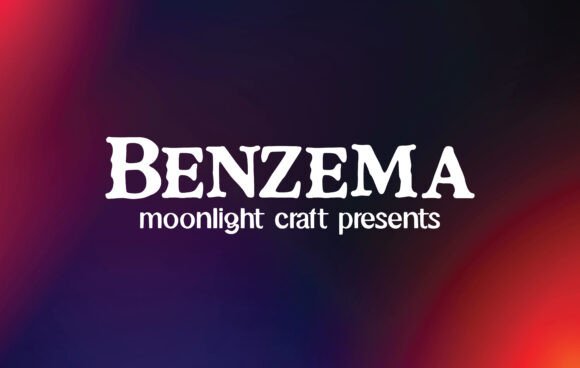
Benzema Font: Elevate Your Creative Projects with Elegance and Sophistication
In the world of typography, fonts play a crucial role in conveying messages, expressing emotions, and creating a lasting impression. For designers, crafters, and creative enthusiasts, finding the right font can be a daunting task. However, if you’re looking for a font that exudes elegance, sophistication, and creativity, look no further than Benzema Font. In this article, we’ll explore the features, benefits, and uses of Benzema Font, and why it’s an excellent choice for your next project.
What is Benzema Font?
Benzema Font is a stunning and beautiful typeface that has gained popularity among designers and crafters. Its unique design and versatility make it an excellent choice for various creative projects, from logos and branding to quotes and social media graphics. With its elegant lines, curves, and flourishes, Benzema Font is sure to add a touch of sophistication to your designs.
Features of Benzema Font
Benzema Font boasts several features that make it an attractive choice for designers and crafters. Some of its notable features include:
- Elegant Design: Benzema Font features a sleek and modern design that exudes elegance and sophistication.
- Versatility: This font is highly versatile and can be used for various creative projects, including logos, branding, quotes, and social media graphics.
- High-Quality: Benzema Font is a high-quality font that is designed to produce crisp and clear results, even at small sizes.
- Easy to Read: Despite its elegant design, Benzema Font is easy to read, making it an excellent choice for body text and captions.
Benefits of Using Benzema Font
Using Benzema Font in your creative projects offers several benefits, including:
- Enhanced Visual Appeal: Benzema Font adds a touch of elegance and sophistication to your designs, making them more visually appealing.
- Increased Legibility: The font’s clear and readable design ensures that your message is conveyed effectively, even at small sizes.
- Flexibility: Benzema Font can be used for various creative projects, from logos and branding to quotes and social media graphics.
- Time-Saving: With Benzema Font, you can create stunning designs quickly and efficiently, saving you time and effort.
Uses of Benzema Font
Benzema Font is a versatile typeface that can be used for various creative projects, including:
- Logos and Branding: Create eye-catching logos and branding materials that exude elegance and sophistication.
- Quotes and Social Media Graphics: Add a touch of elegance to your quotes and social media graphics, making them more visually appealing.
- Advertising and Marketing Materials: Use Benzema Font to create stunning advertising and marketing materials that grab attention.
- Packaging and Label Design: Add a touch of sophistication to your packaging and label designs with Benzema Font.
Why Choose Benzema Font?
With so many fonts available, why choose Benzema Font? Here are a few reasons:
- Unique Design: Benzema Font features a unique design that sets it apart from other fonts.
- High-Quality: This font is designed to produce high-quality results, even at small sizes.
- Versatility: Benzema Font can be used for various creative projects, making it an excellent addition to your font library.
- Ease of Use: This font is easy to use and works seamlessly with popular design software.
In conclusion, Benzema Font is a lovely and beautiful font that has the potential to take your creative ideas to the highest level. Its elegant design, versatility, and high-quality features make it an excellent choice for creating eye-catching logos, branding, and quotes. Whether you’re a designer, crafter, or creative enthusiast, Benzema Font is sure to become a valuable addition to your font library.